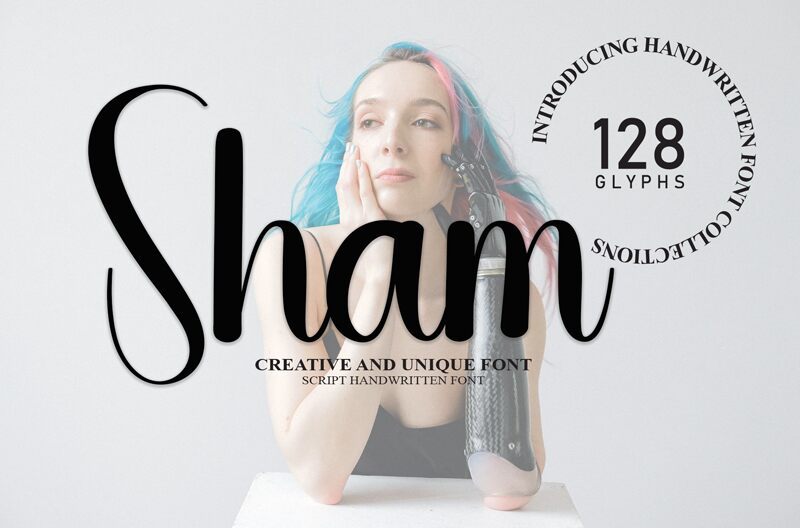
Sham
Sham, crafted by Andi Moz, is a sweet and friendly handwritten display font exuding charm with each stroke. With its condensed width and playful style, Sham adds a touch of whimsy to any design project. Its cute and fun nature makes it ideal for wedding invitations, greeting cards, or any context requiring an endearing personal touch.
The lively character of Sham ensures your text stands out while maintaining a sense of warmth and accessibility. Whether for joyous celebrations or heartfelt messages, Sham is perfect for infusing joy into your designs.